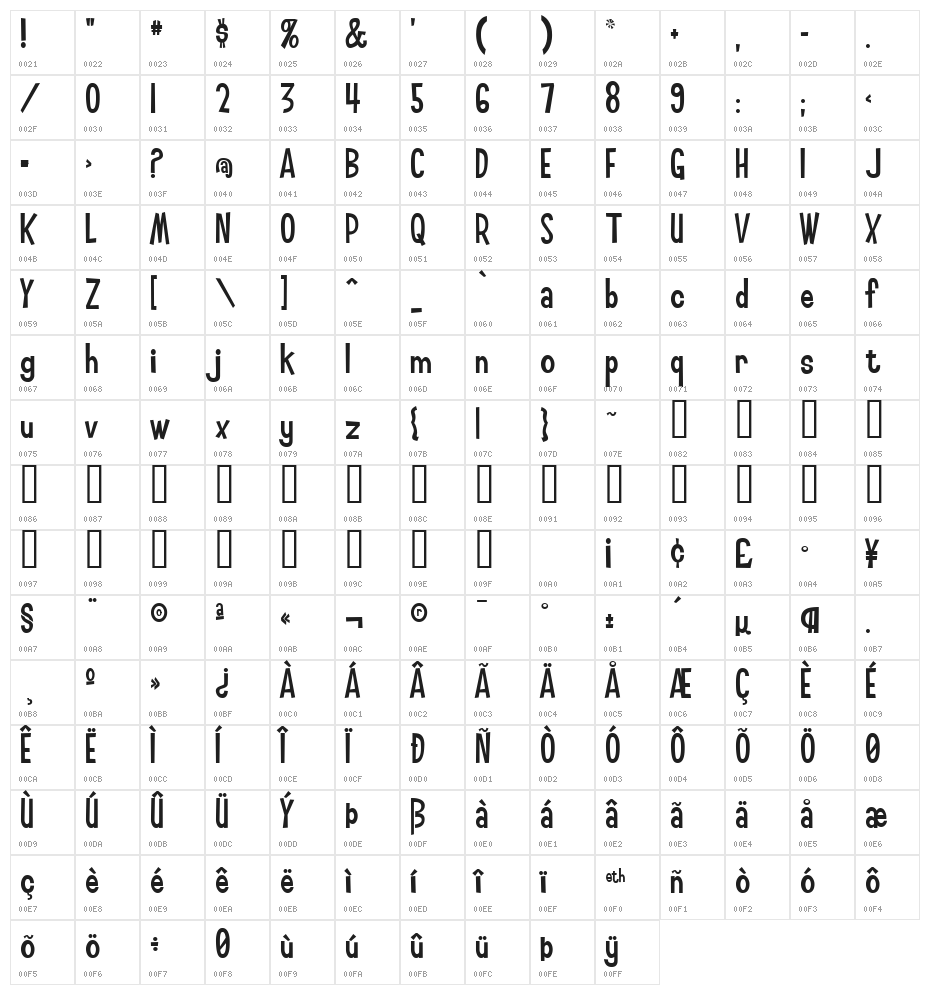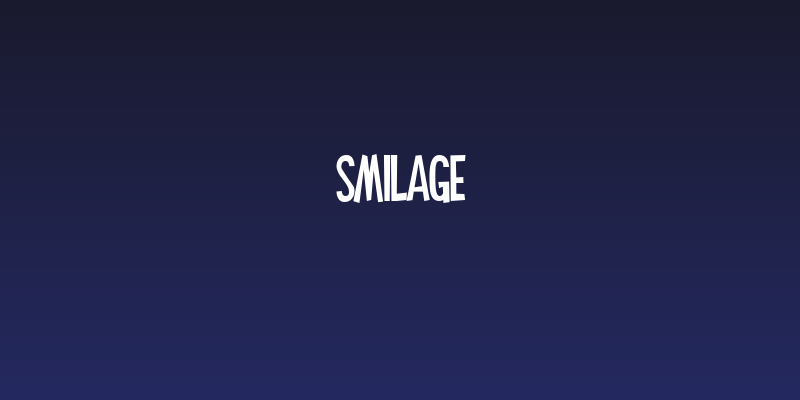
Smilage Font
Smilage Description
This font features a playful and bold design, characterized by its thick strokes and slightly condensed letterforms. The uppercase letters are tall and commanding, while the lowercase letters maintain a consistent height, adding to the font's cohesive appearance. The numerals are clear and easy to read, matching the overall boldness of the alphabet. Special characters are included, maintaining the same playful style, making this font versatile for various uses. Its unique style is eye-catching, making it suitable for projects that require a fun and engaging typeface.
| Proposed Projects | Ideal for children's books, playful branding, posters, and any project needing a fun, bold typeface. |